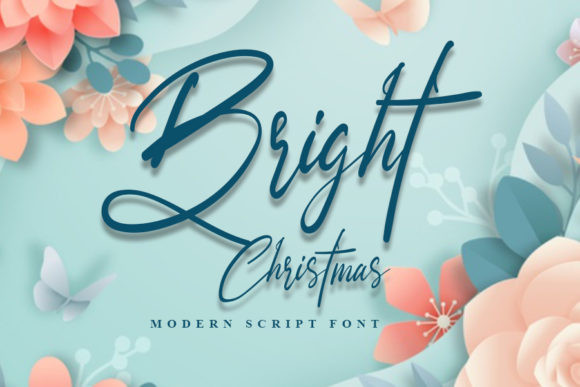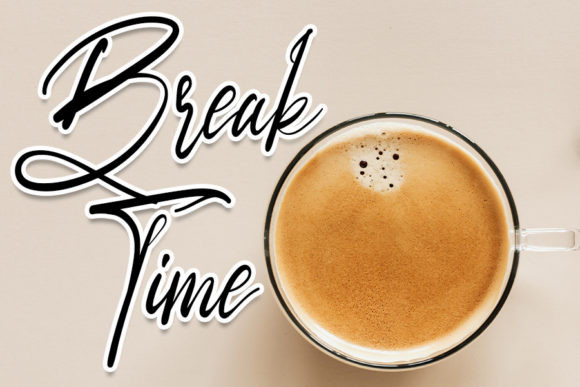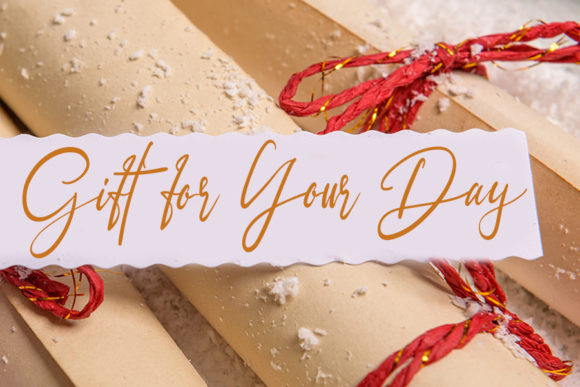
Bright Christmas Font
Bright Christmas is a really special script font with sweet swashes and a soft rhythm that is created from one letter to the other. Add a personal touch to any design with this beautiful typeface such as flyers, mockups, logos, banners, Instagram, youtube, and various other crafts.